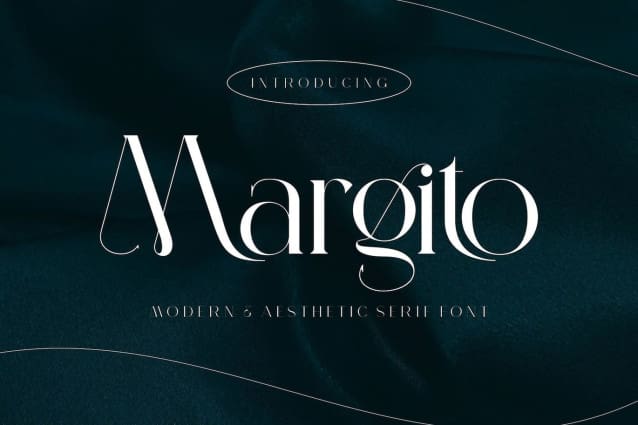
Margito Font
Margito Font – Modern Serif inspired by the famous minimalist logo, perfect for designing templates, brochures, videos, advertisements , brands, logos, invitations, layouts, elegant crafts, beauty design, etc.